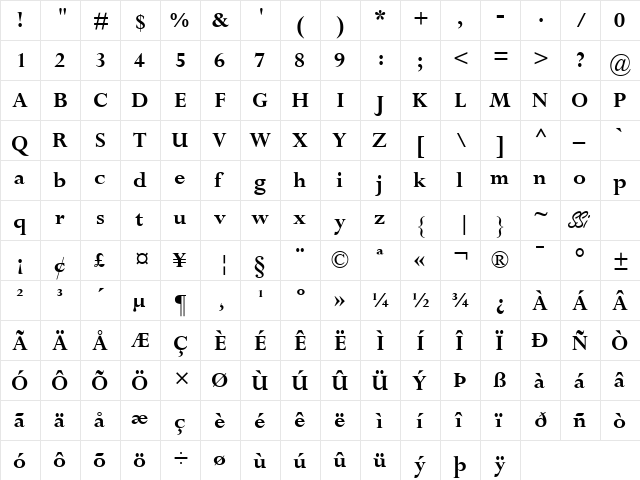
Compleat SSi Bold
Design Context for Compleat SSi Typeface
Compleat SSi takes a measured approach to typography — its balanced proportions and neutral character make it a reliable workhorse for both digital and print work. The heavy weight commands attention and anchors typographic hierarchies.